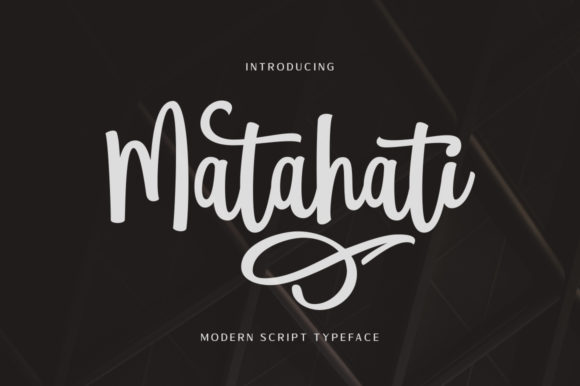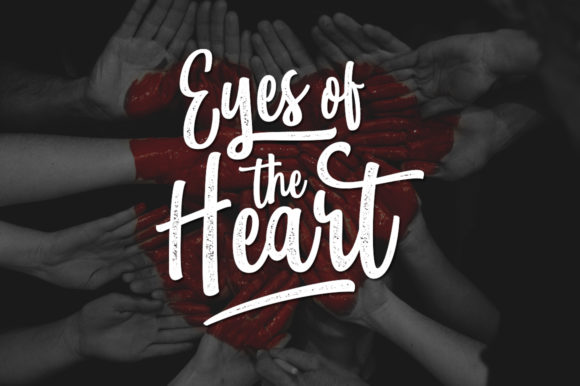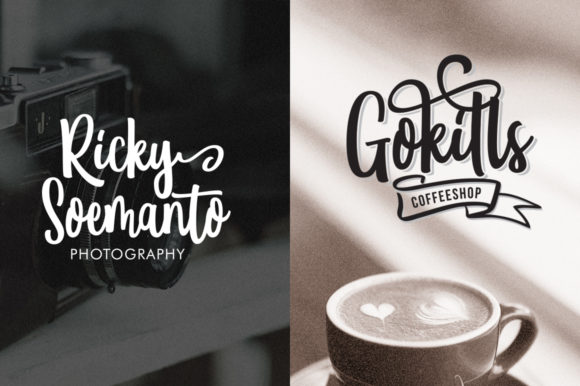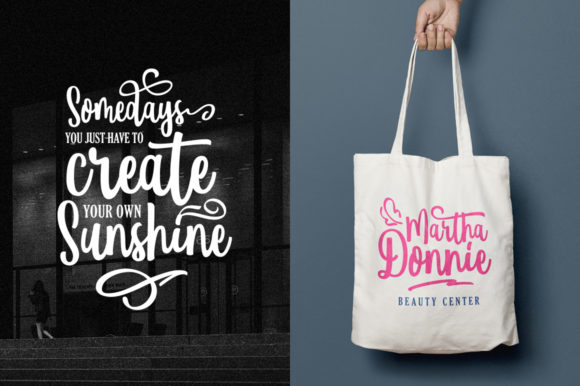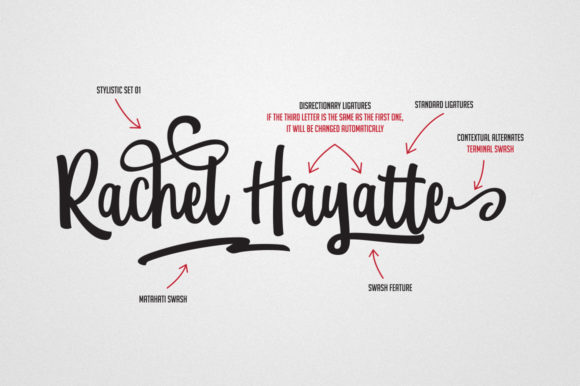
Matahati Font
About Matahati Font
The Matahati is an amazing script font. It was based on a modern calligraphy style which is reprocessed by combining passion and deep feelings to create beautiful and memorable artworks.